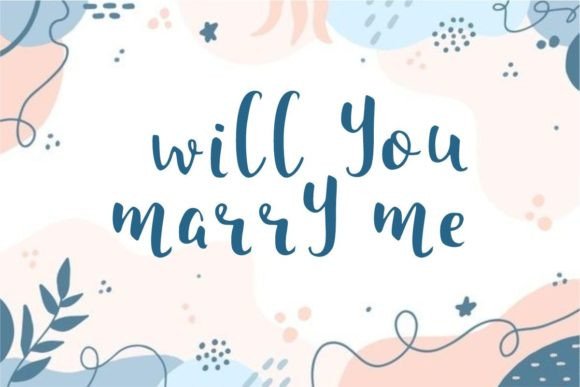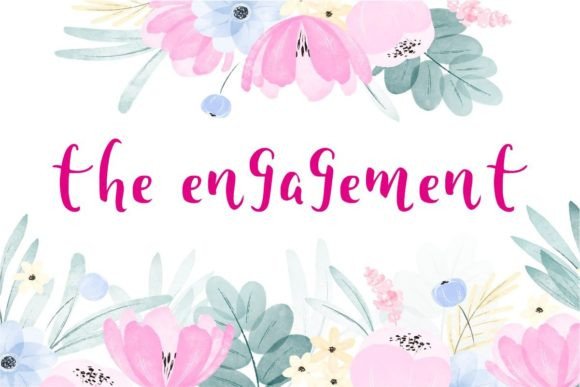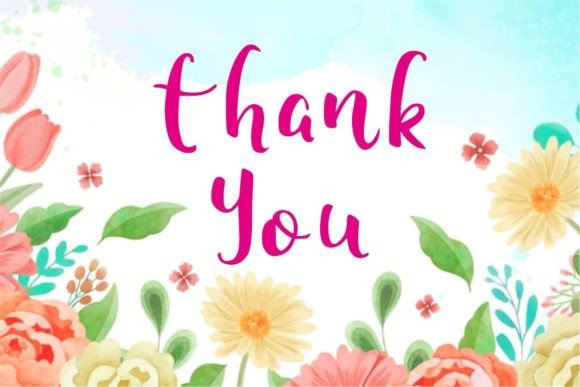
Introduction to Selina Font
As a designer, there’s nothing quite like the rush of creating something new and beautiful. You’ve spent hours pouring over your project, perfecting every detail, and then it hits you – the perfect font. It’s the icing on the cake, the cherry on top, and it makes all your hard work shine. For me, that font is Selina Font. Its elegant, handwritten style is the perfect addition to any project, and I’m excited to share it with you.
Key Features of Selina Font
- High-quality design resource ideal for creative projects, offering a unique and elegant style.
- Includes a range of characters, including uppercase and lowercase letters, numbers, and special characters, making it a versatile font.
Honest Review: Selina Font
I recently had the chance to work with the Selina Font, and I must say it’s been a pleasant experience. As a designer, I’m always on the lookout for high-quality design resources to help bring my creative projects to life.
One of the things I appreciate about the Selina Font is its clean and elegant design. The font is perfect for those who want a sophisticated and professional look without the hefty price tag. Plus, it’s available for free download, making it a great option for designers on a budget.
Here are some of the things that work well with the Selina Font: ✨
- High-quality design: The font is well-crafted and looks great in both print and digital formats.
- Transparent background: This makes it easy to use the font on any background without worrying about it getting lost.
- Limited language support: The font may not be available in as many languages as some other fonts on the market.
- No bold or italic options: While the font is available in regular and light weights, there are no bold or italic options available.
Overall, I’m impressed with the Selina Font. It’s a great option for designers who want a high-quality font without breaking the bank. While it may have a few limitations, the benefits far outweigh the drawbacks.
Tips for Getting the Most Out of Selina Font
For optimal results, use Selina Font on a transparent background to achieve a seamless design. Additionally, consider combining Selina Font with other high-quality design resources to create a cohesive and visually appealing project.
Selina Font is ideal for a variety of creative projects, including blog posts, social media graphics, and marketing materials. Its high-quality design makes it a versatile choice for designers seeking a unique and professional look.